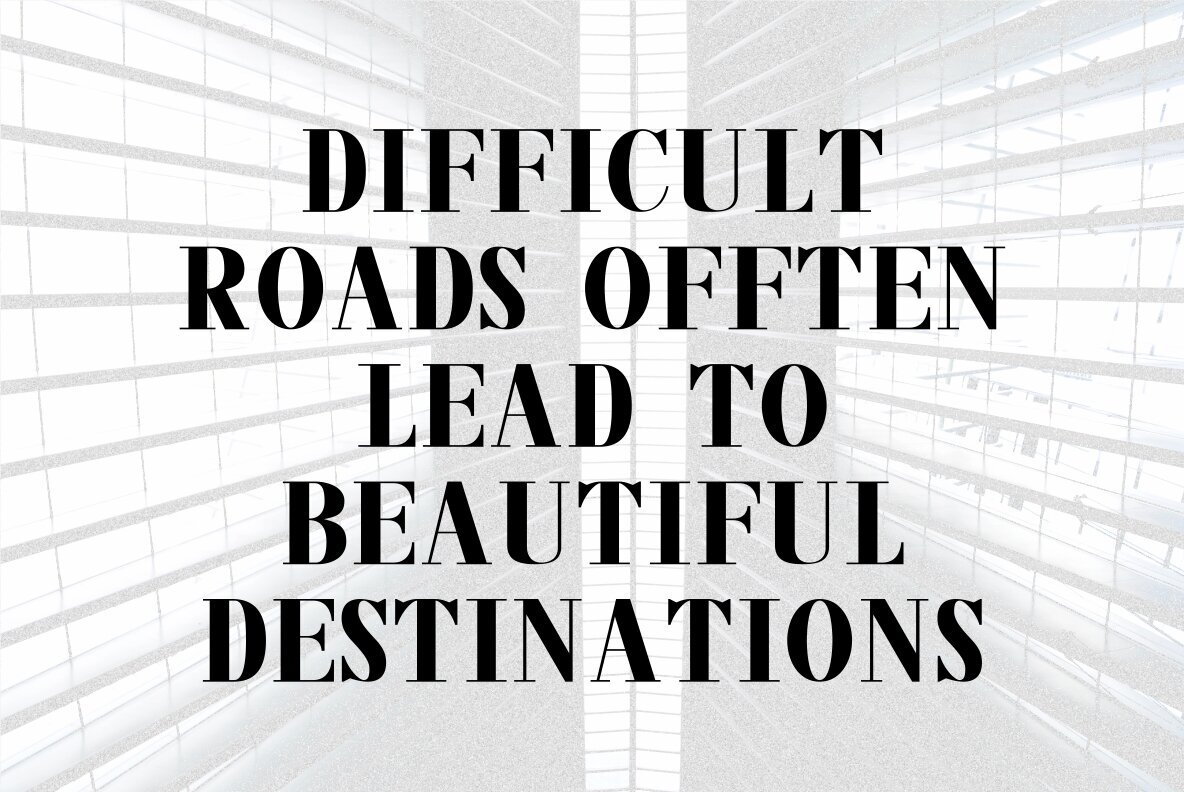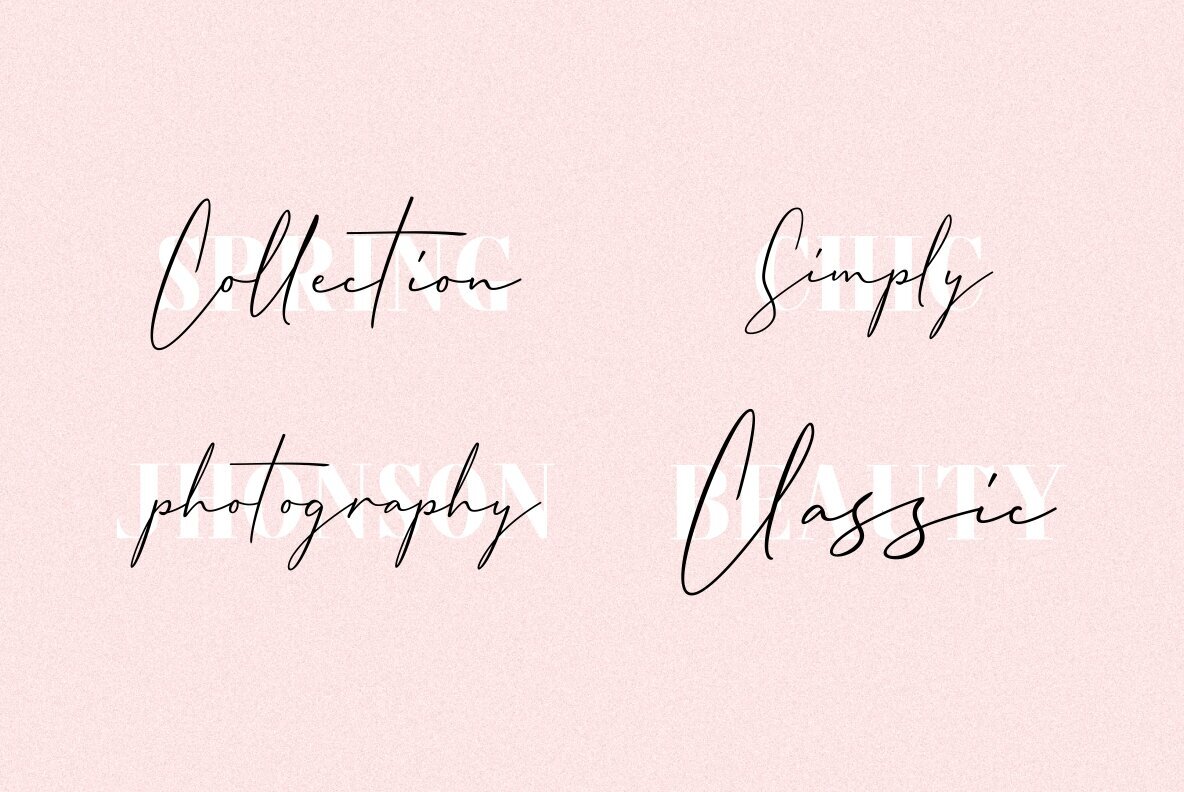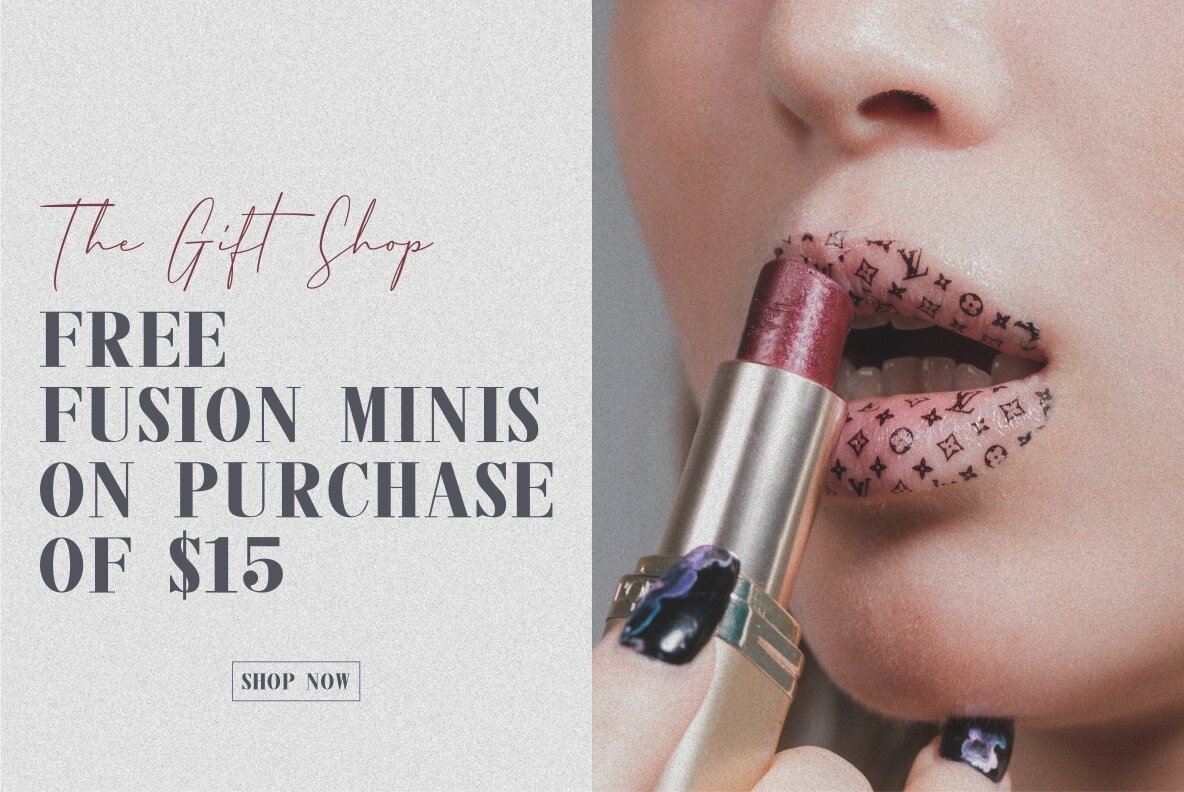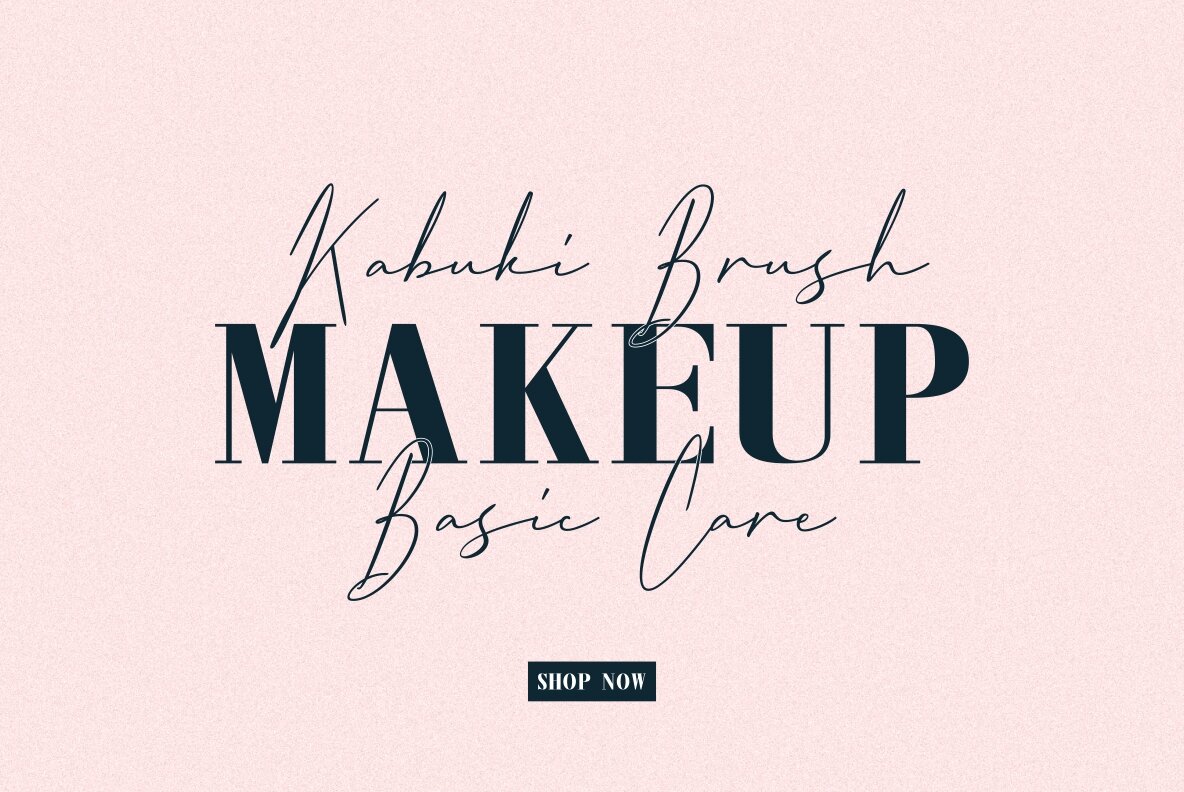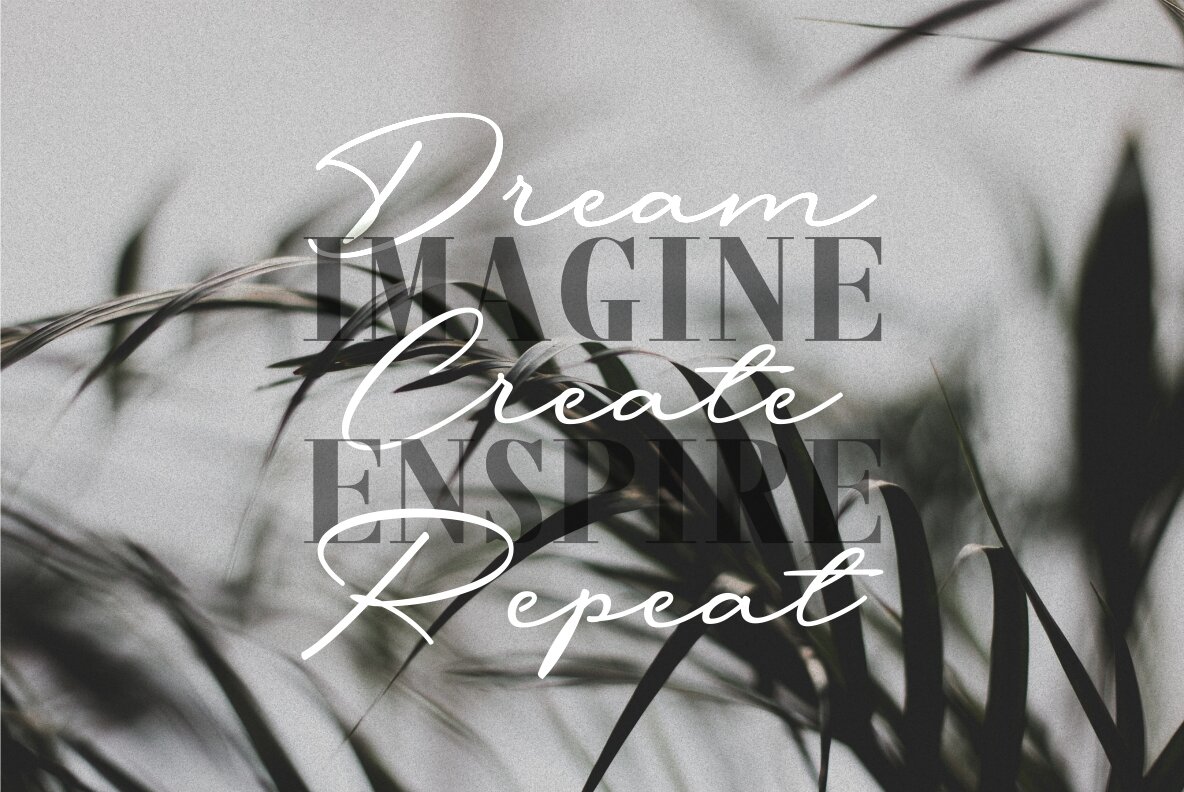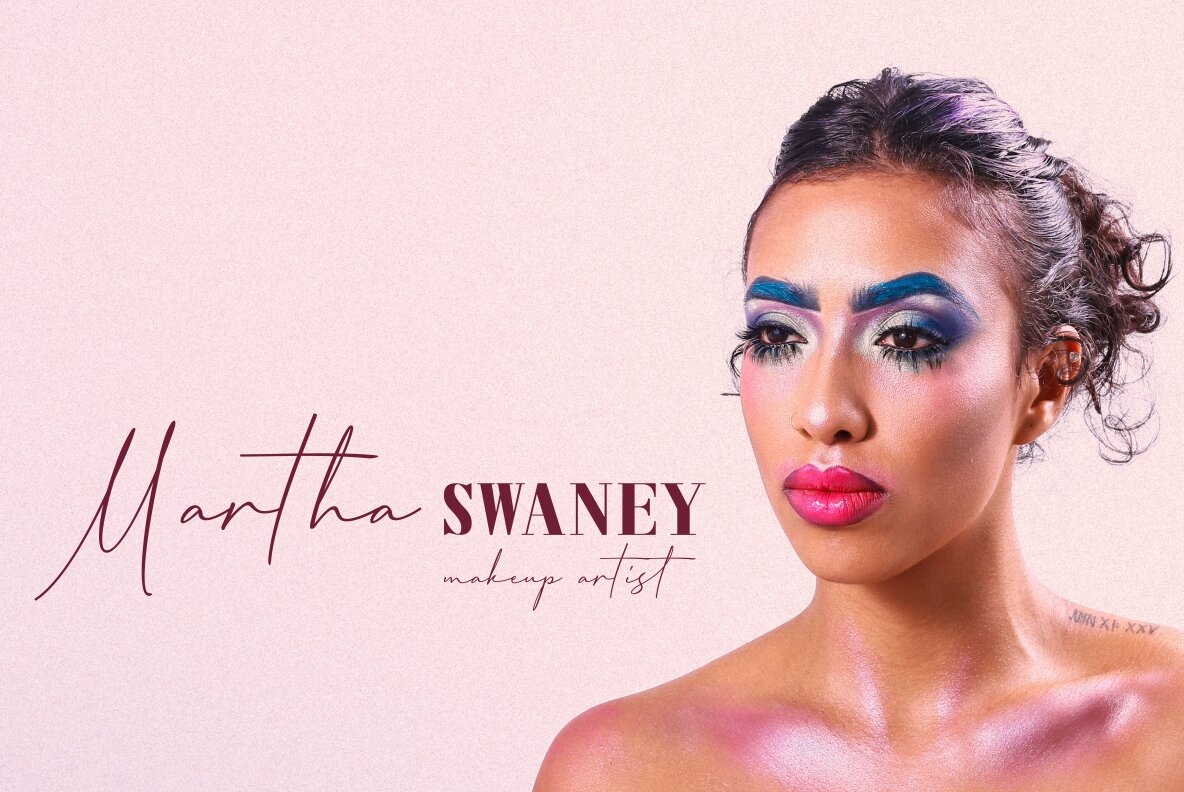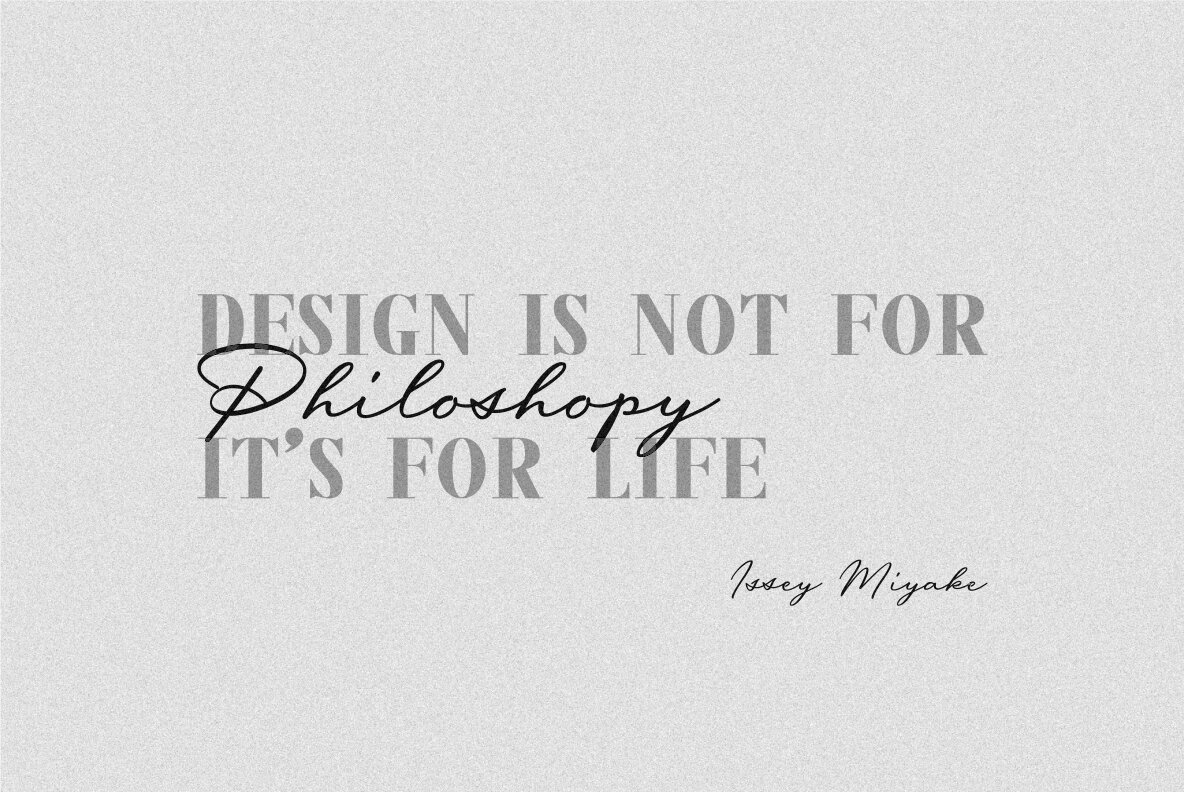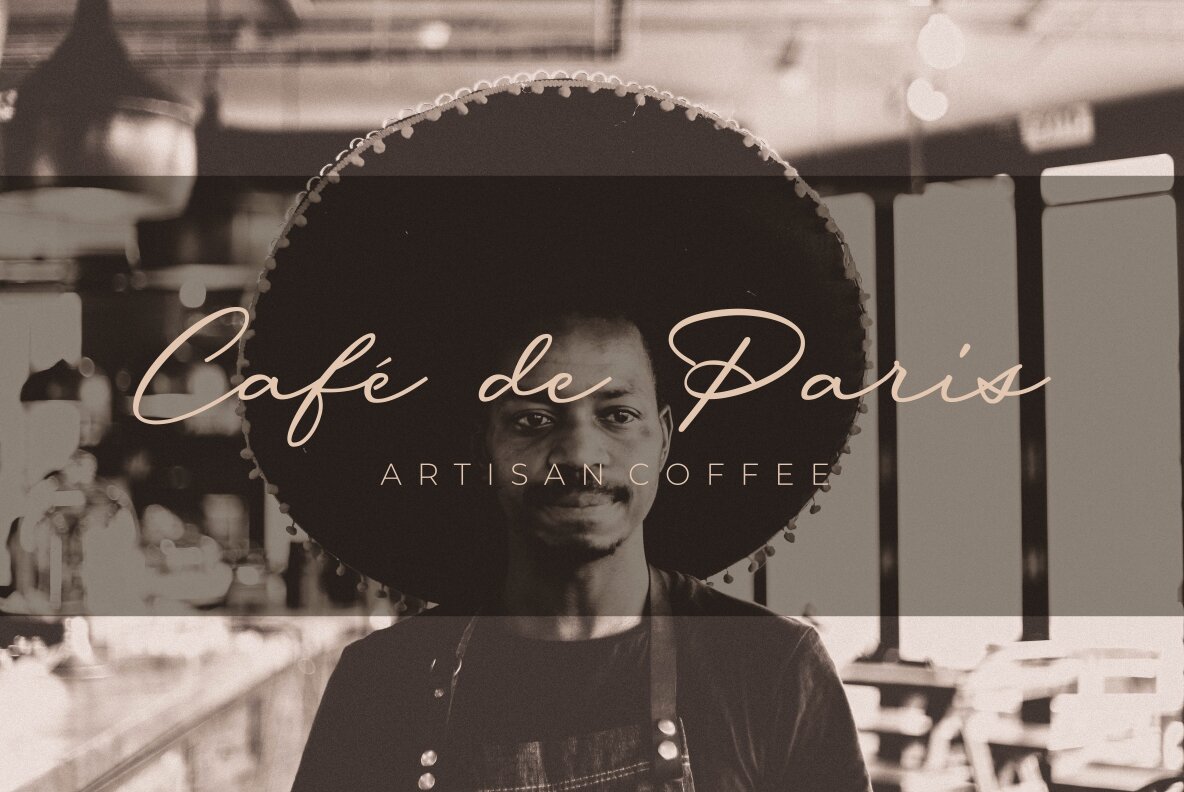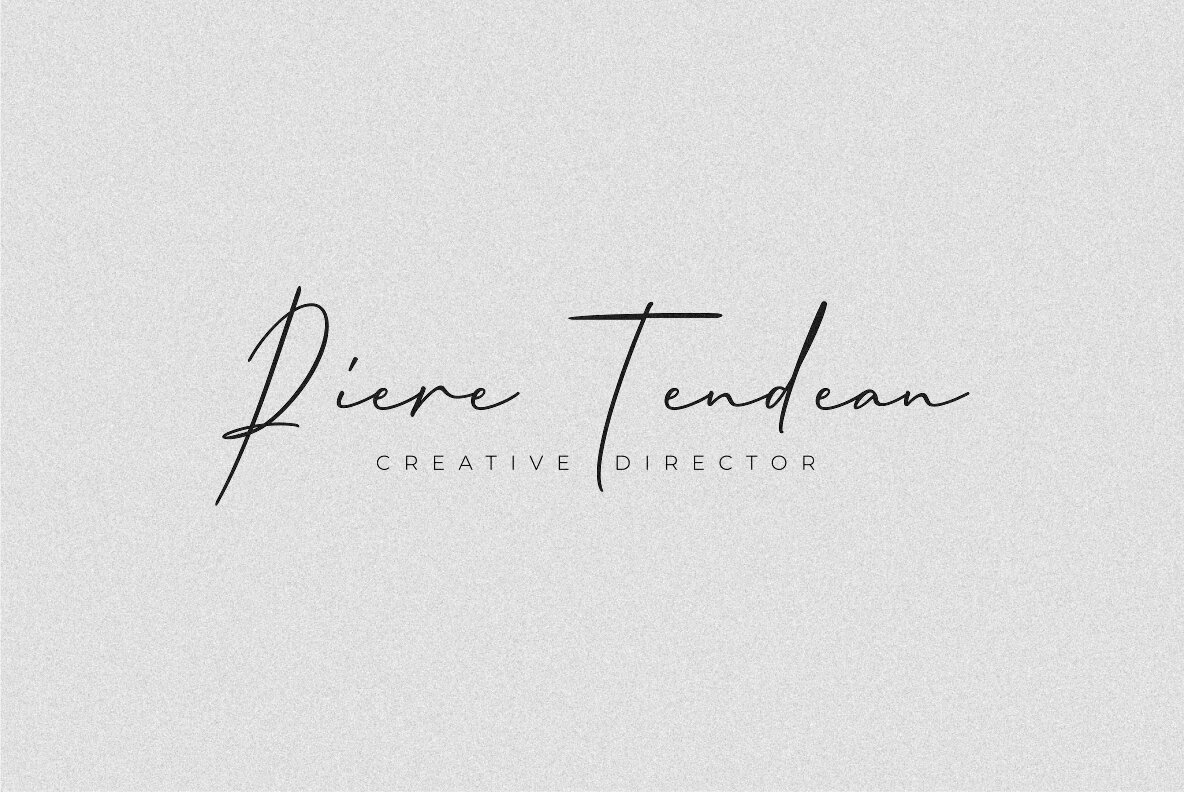
Messy Nessy Font
Messy Nessy is a fun way to get creative with your designs! It includes three fonts—two scripts and one serif font.
Messy Nessy features:
- A full set of upper & lowercase characters
- Numbers & Punctuation